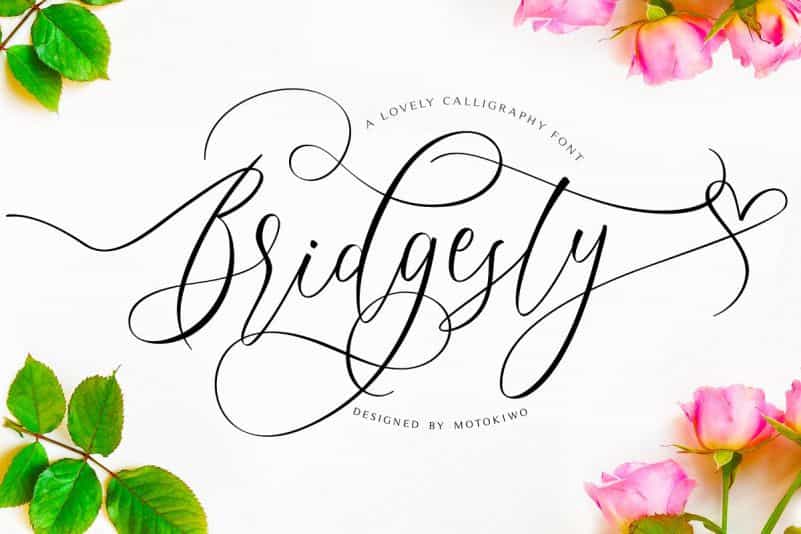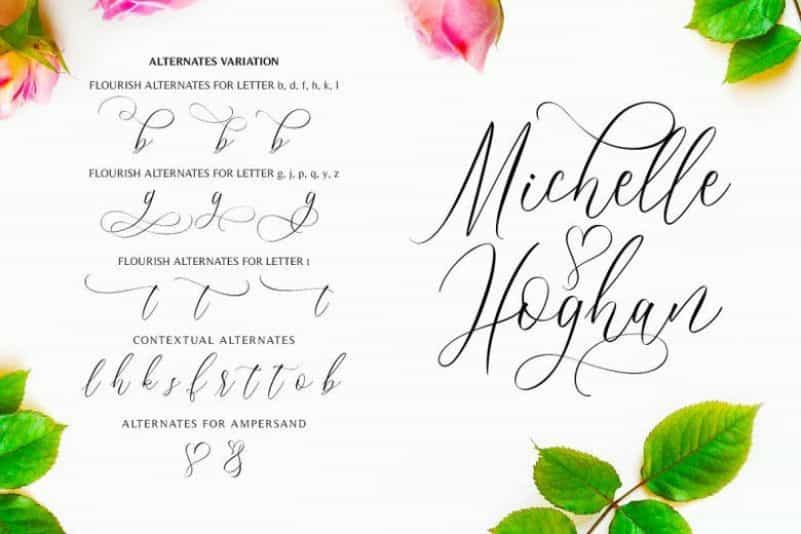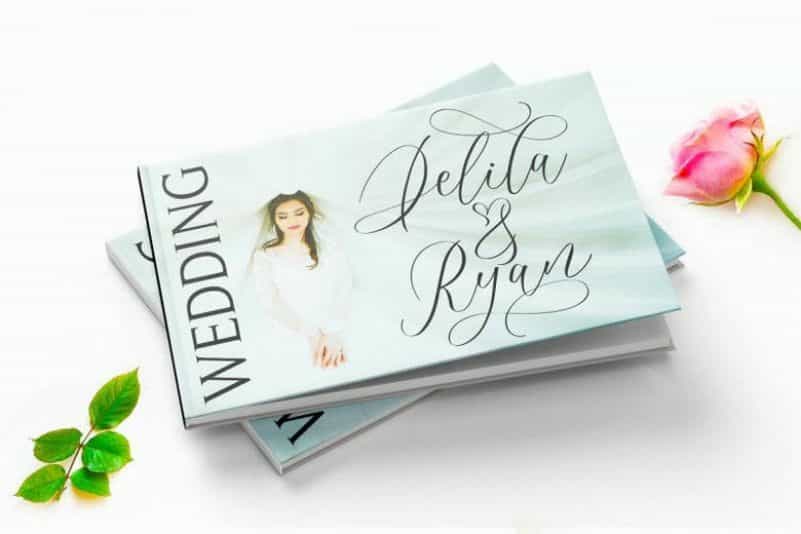
“Bridgesty Font” – is a beautiful calligraphy font. This kind of writing style relies on the use of copperplate pen and it’s made by hand. It is created and shared by Motokiwo. Bridgesty Script Font, a beautiful calligraphy font with the romantic flavor.